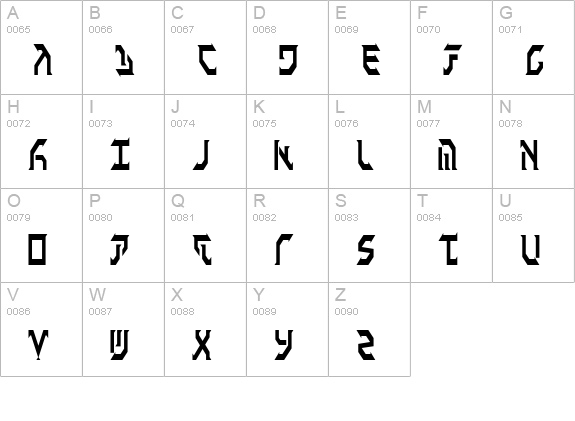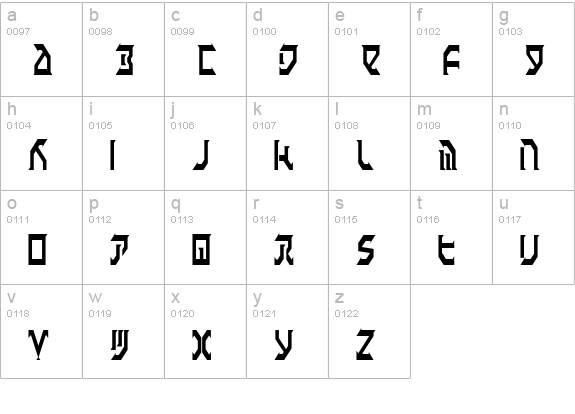
Fantazian Condensed Font Details
Fantazian Condensed is a distinctive, condensed-width variant in the Fantazian typeface family \xE2\x80\x94 well suited to design and typography projects.
Fantazian Condensed is a stylish and modern font that exudes elegance and sophistication. Its sleek and slender letterforms make it perfect for a wide range of design projects, from branding to editorial design. The condensed style of the font allows for more text to be displayed in a limited space, making it ideal for headlines and other display purposes. What makes Fantazian Condensed even more appealing is that it is available for free download at FontsMarket.com. This means that you can easily access this high-quality font without any cost, making it a valuable addition to your font collection. Whether you are a designer looking for a versatile typeface or a business owner seeking a professional font for your marketing materials, Fantazian Condensed is sure to meet your needs. Download it today and elevate your designs with this beautiful and versatile font.